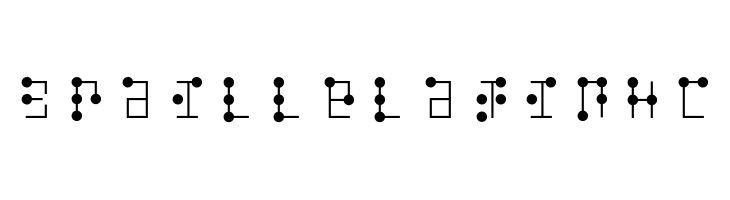
A modern font combining Braille patterns with Latin characters for a tactile and visual experience.
A playful, hand-drawn font with bold, rounded characters and a whimsical style.
A bold, modern font with thick, uniform strokes and a strong visual presence.
A modern, italic sans-serif font with a clean and dynamic style.
A bold, flowing script font with interconnected characters and a warm, approachable style.
A bold, geometric font inspired by tangram puzzles, ideal for artistic projects.
A bold, distressed 3D font with a vintage, rugged appearance.
A playful font with letters embedded in construction vehicle graphics.
A playful, hand-drawn font with uneven strokes and a whimsical style.